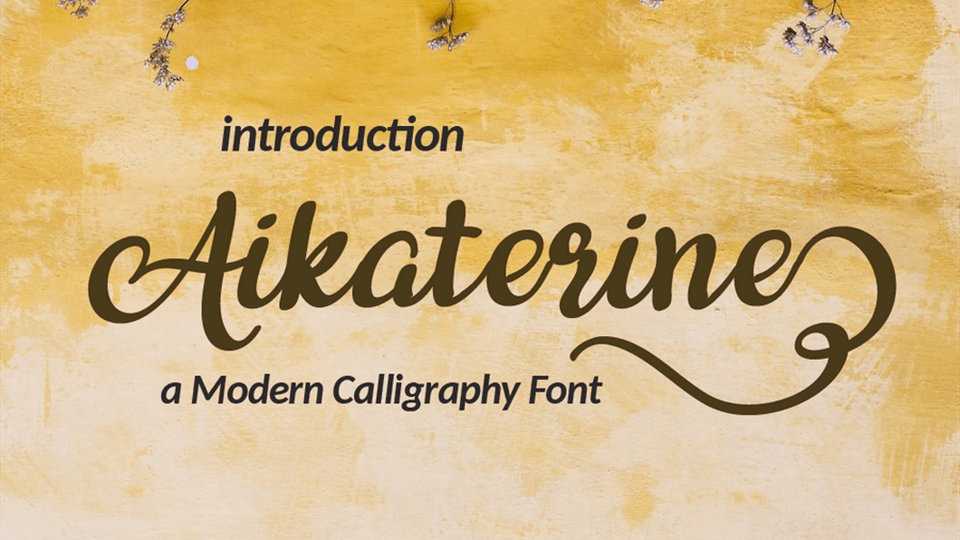
Download Aikaterine font, a lovely and timeless handwritten typeface. Aikaterine is the best choice for creating eye catching logos, branding and quotes.
Designer: Abdullah Daud